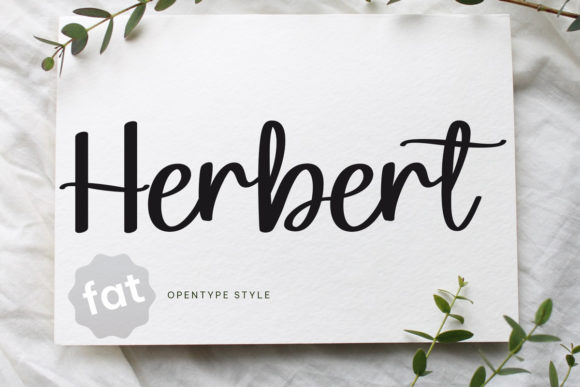
Introduction to Herbert Font
Have you ever found yourself in a moment of pure creative bliss, where everything comes together in perfect harmony? The camera snaps the perfect shot, the words flow effortlessly onto the page, and the design simply feels right. For designers, these moments are what make all the hard work worth it. And for those moments, you need a font that can elevate your work to the next level – that’s where the charming Herbert Font comes in.
With its high-quality, elegant design, the Herbert Font is the perfect addition to any creative project. Whether you’re looking to add a touch of sophistication to a photography project, or want to create a beautiful watermark for your blog, this font is sure to impress. And the best part? It’s a free download, making it an invaluable resource for designers of all levels.
Key Features of Herbert Font
- High-quality design for creative projects, ideal for use in digital art and graphic design.
- Features a transparent background, allowing for easy integration into various design projects.
- Unique characteristics include elegant and sophisticated letterforms, making it perfect for luxury and high-end branding.
- Designed to be highly legible, even at small font sizes, making it suitable for a wide range of design applications.
Honest Review: Herbert Font
As a designer, I’m always on the lookout for high-quality design resources to elevate my creative projects. Recently, I had the chance to work with the Herbert Font, and I’m excited to share my honest review with you.
What works well: ✨ I love the vintage vibe of this font, it’s perfect for creating a nostalgic feel in my designs. The free download is also a huge plus, making it easily accessible to designers of all levels. The font is well-suited for titles, headings, and even body text, thanks to its clear and readable style.
- High-quality design with a unique vintage feel
- Transparent background, making it easy to work with
Limitations: ⚠️ While I love the style of the Herbert Font, I do wish it came in more weights and styles. Additionally, some of the characters may require manual adjustments to fit the desired design.
Overall impression: I’m really impressed with the Herbert Font, and I can see it becoming a staple in my design arsenal. The high-quality design and free download make it a great resource for designers, and I’m excited to see how it can elevate my creative projects.
Tips for Getting the Most Out of Herbert Font
Experiment with different font sizes and styles to create a unique and eye-catching effect. Use the transparent background to create a sense of depth and dimension in your design. Consider combining the Herbert Font with other design resources to create a cohesive and high-quality visual identity.
The Herbert Font is a versatile design resource, suitable for a wide range of creative projects, including logos, branding materials, and digital graphics. Its unique design and transparent background make it an ideal choice for designers looking to create visually appealing and high-quality designs.